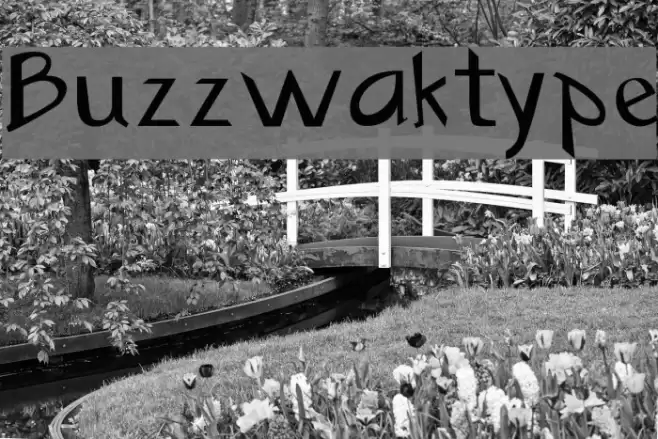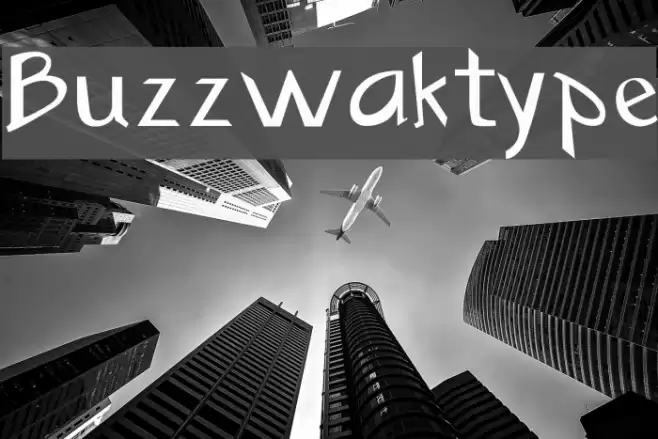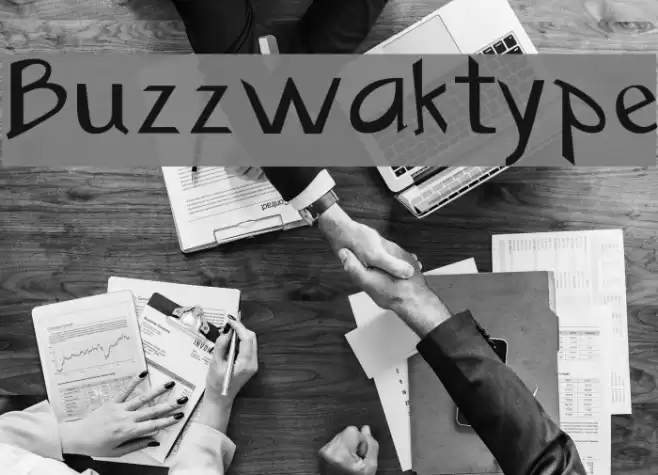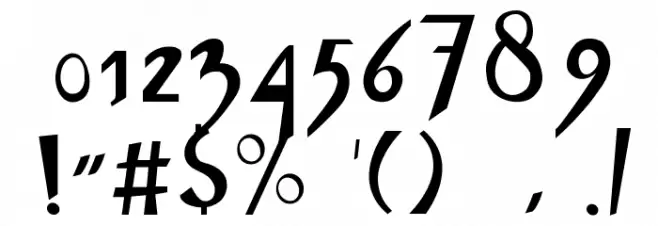
Buzzwaktype Font
Buzzwaktype Description
This font features a unique and dynamic style with sharp, angular edges and a slightly irregular baseline, giving it a lively and energetic appearance. The uppercase letters are bold and commanding, with distinctive cuts and angles that create a sense of movement. The lowercase letters maintain this dynamic feel, with some characters having an almost calligraphic flair. The numerals are equally bold, with a consistent style that matches the alphabetic characters. Special characters are designed to complement the overall aesthetic, maintaining the sharp and angular theme. This font is well-suited for projects that require a bold and eye-catching display, offering a modern twist on traditional letterforms.
A dynamic and angular font with bold, sharp edges and a lively appearance from Distorted Eroded fonts.
- Proposed Projects: Ideal for branding, posters, headlines, and any design that requires a bold and energetic typeface.